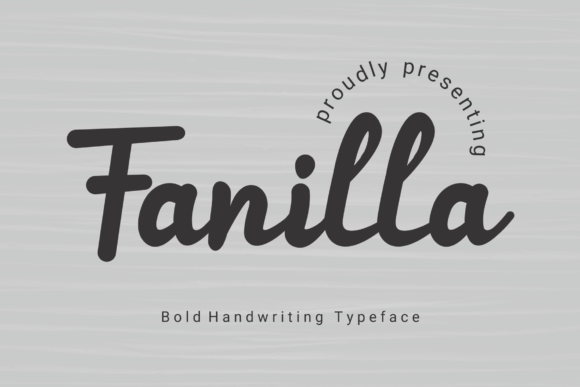
Welcome to the enchanting world of Fanilla Font, a handcrafted symphony of elegance and warmth. This exquisite script font is the brainchild of MualanaDesign, renowned for their artistry in creating fonts that captivate and inspire.
Fanilla Font is the perfect choice for those seeking a font that effortlessly evokes the essence of fall. Its fluid strokes and graceful curves mimic the vibrant hues and textures of autumn leaves, creating a captivating visual experience that transports you to the heart of the season.
But Fanilla Font is not just a seasonal delight; it is a versatile masterpiece that lends its charm to a myriad of design endeavors. Whether you're crafting logos that exude sophistication, designing wedding invitations that radiate romance, or creating signage that commands attention, Fanilla Font has the power to elevate your designs to new heights.
Its elegant strokes bring a touch of refinement to branding projects, enhancing the perceived value of your products or services. The friendly tone inherent in its design fosters a sense of approachability and warmth, making it an ideal choice for invitations and personal correspondence.
The versatility of Fanilla Font extends to the realm of digital artistry. Its enchanting qualities make it a favorite among crafters and scrapbookers, adding a touch of whimsy and charm to their creations. Social media enthusiasts can harness the power of Fanilla Font to craft eye-catching posts and stories that captivate their audience.
With Fanilla Font at your fingertips, you'll discover a world of creative possibilities. Its ability to transform ordinary designs into extraordinary works of art will ignite your imagination and inspire you to create designs that leave an unforgettable impression.
So, embrace the magic of Fanilla Font and let its enchanting strokes elevate your designs to new heights. Whether you're a seasoned designer or a creative enthusiast, Fanilla Font is the essential tool you've been seeking to unlock your full design potential.